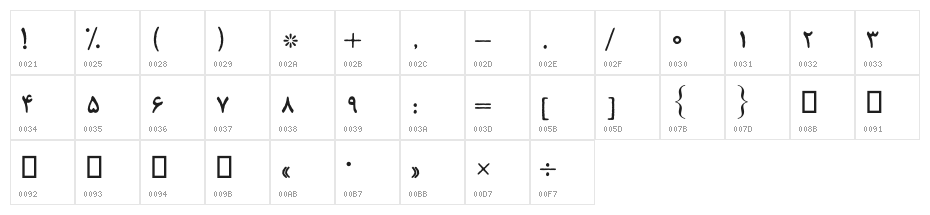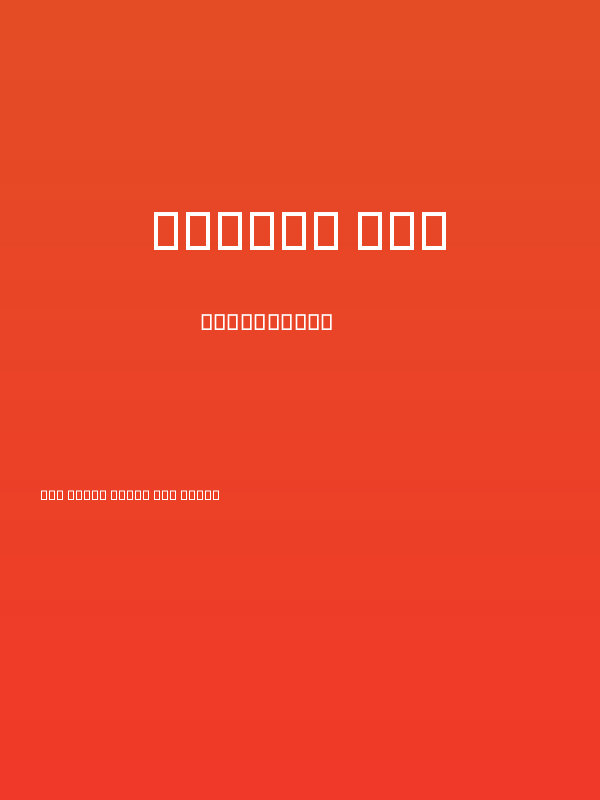
Tahrir New Font
Tahrir New Description
This font features Arabic numerals with a handwritten, calligraphic style, while the Latin characters are not displayed correctly. The numerals have fluid, organic strokes and variable thickness, giving a dynamic and expressive appearance. Punctuation and symbols are simple and consistent with the handwritten feel.
| Overall Style | Decorative, Artistic |
| Use Case | Display, Posters, Artistic projects |
| Proposed Projects | Artistic posters, educational materials, creative branding, cultural projects. |